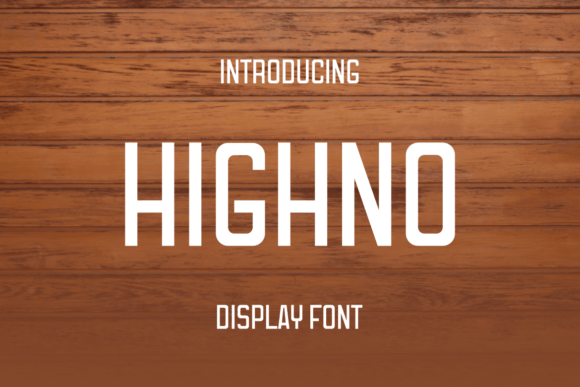
Introducing Highno Font: The Ultimate Expression of Sincerity and Grace
In the realm of communication, few things hold the power to convey heartfelt emotions like a well-chosen font. When it comes to crafting an apology letter, the font you select can either amplify or undermine the sincerity of your message. Enter Highno Font, a meticulously designed sans serif display font that elevates your words with a touch of elegance and authenticity.
Highno Font: A Stroke of Brilliance
Highno's clean lines and understated charm lend a touch of sophistication to your apology, allowing your words to shine through with clarity and impact. Each character exudes a sense of genuineness, inviting the recipient to embrace your heartfelt message with open arms. Whether you're seeking forgiveness from a loved one, a colleague, or a client, Highno Font provides the perfect foundation for expressing your sincere regret and paving the way for reconciliation.
Crafted with Care, Designed to Impress
Marvadesign, the creative force behind Highno Font, has poured their heart and soul into every curve and stroke, ensuring that each letter carries the weight of authenticity. This font is not merely a collection of characters; it's a testament to the power of words, a vessel through which your apology can transcend the boundaries of language and touch the depths of the human heart.
Unlock the Power of Highno Font
With Highno Font, you'll discover a new realm of expressive possibilities. Apology letters have never looked so compelling, so sincere, so utterly captivating. Experience the transformative power of a font that speaks volumes, even in the quietest of moments.
Highno Font: The Key to Unlocking Genuine Connection
In today's digital world, where communication often feels impersonal and detached, Highno Font offers a refreshing antidote. It's a font that restores the human touch to digital correspondence, bridging the gap between sender and recipient. With Highno Font, your apology letter becomes more than just words on a screen; it becomes a tangible expression of your remorse and your commitment to making things right.